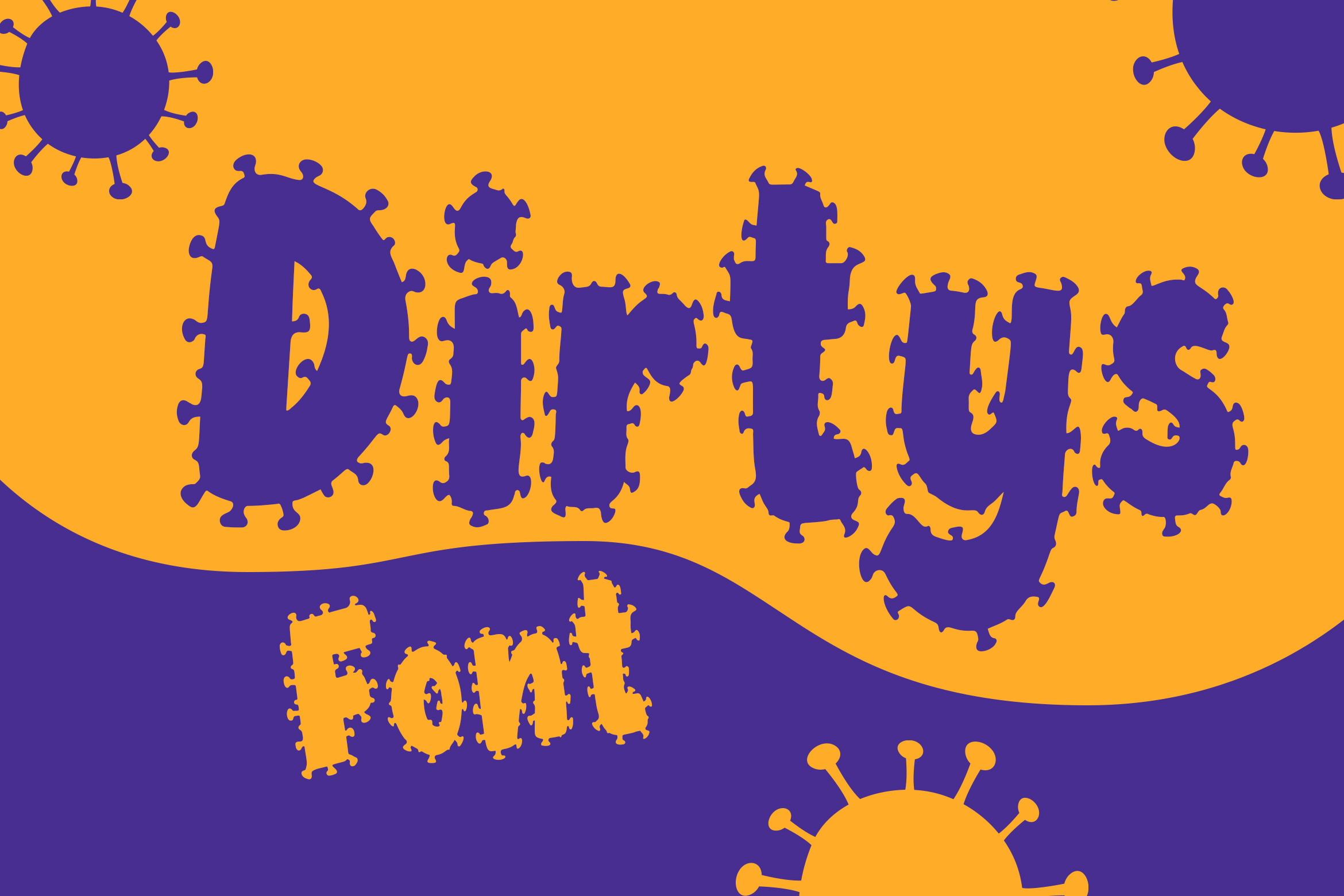
Dirtys Font
Dirtys Is a decorative font with a shape like a virus and bacteria particle. And ready to use for your poster design needs, quote designs, header text, banner, social media, advertisements and much more.